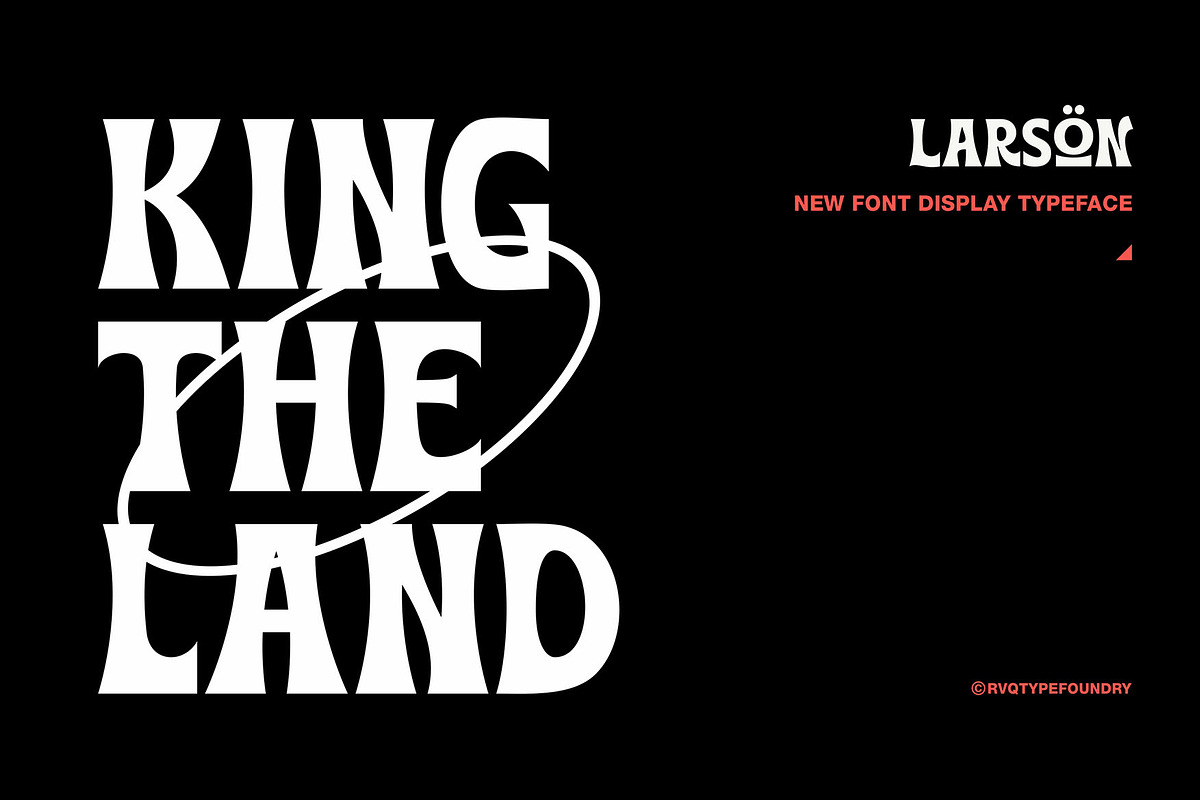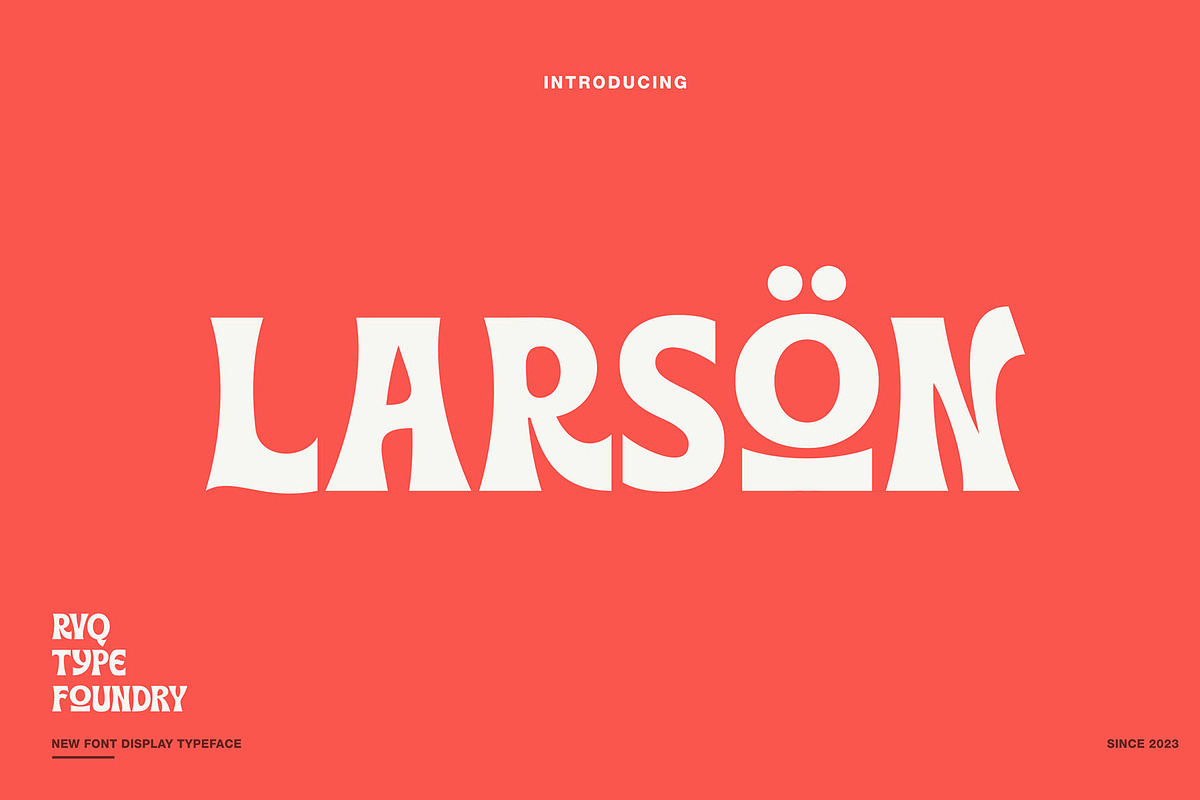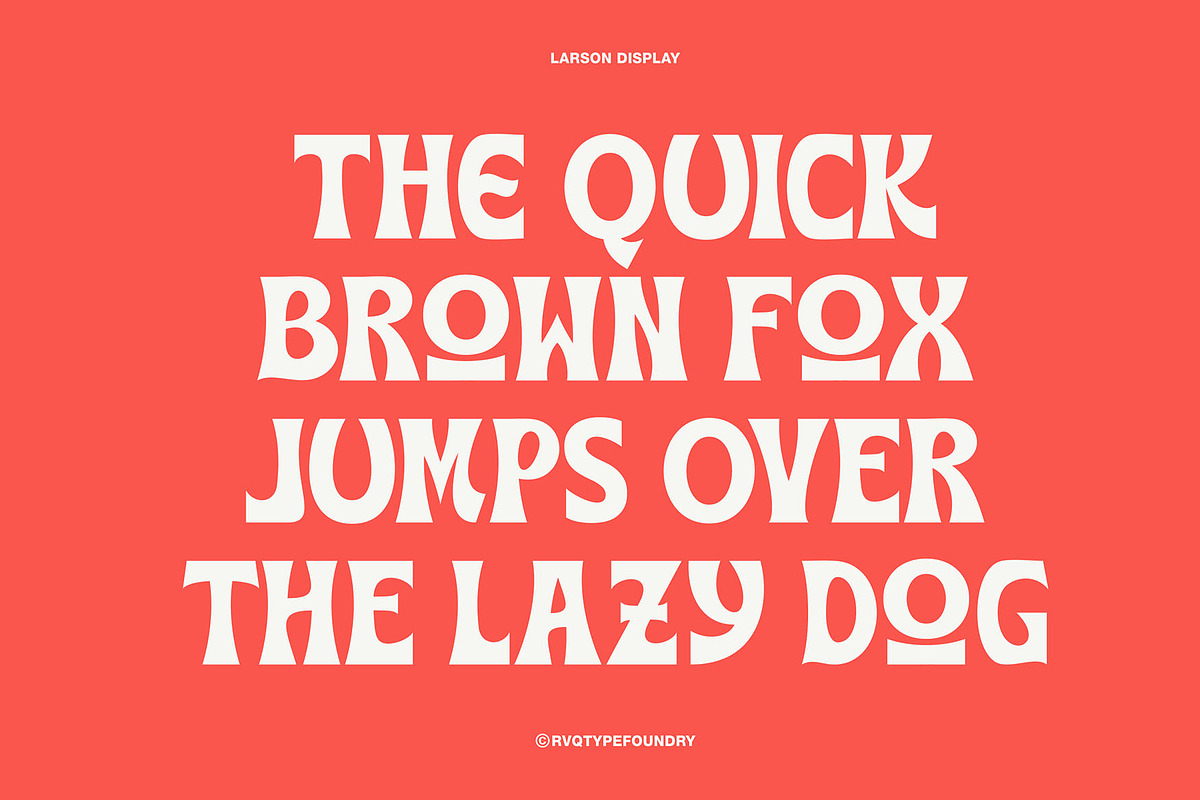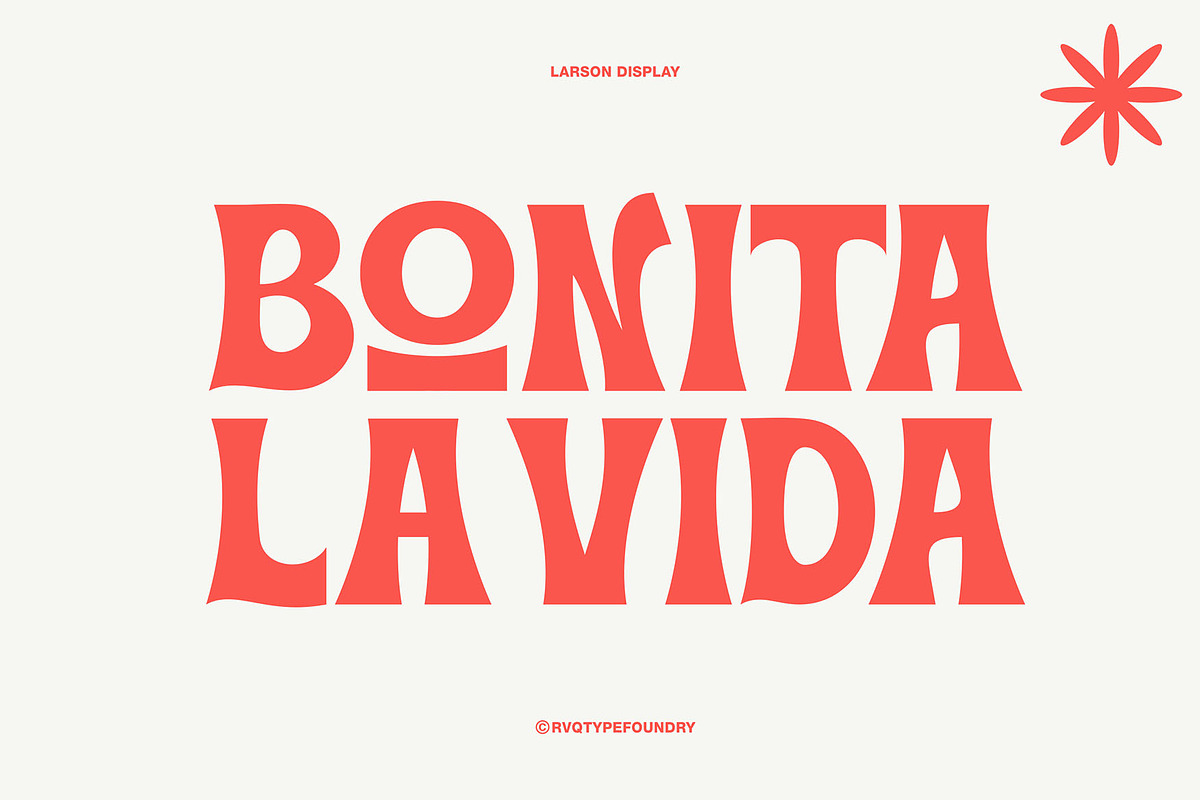
Larson display
The Larson display is new font from Rvq Typefoundry, elegant feel character set. To create the beautiful combination, just mix the uppercase and lowercase. The Larson display includes a full set of capital and lowercase letters, as well as multi-lingual support, currency figures, numerals, punctuation & some extra glyphs, The Larson display an elegant and bold serif font. Fall in love with its incredibly versatile style and use it to create gorgeous wedding invitations, beautiful stationary art, eye-catching social media posts, and much more.